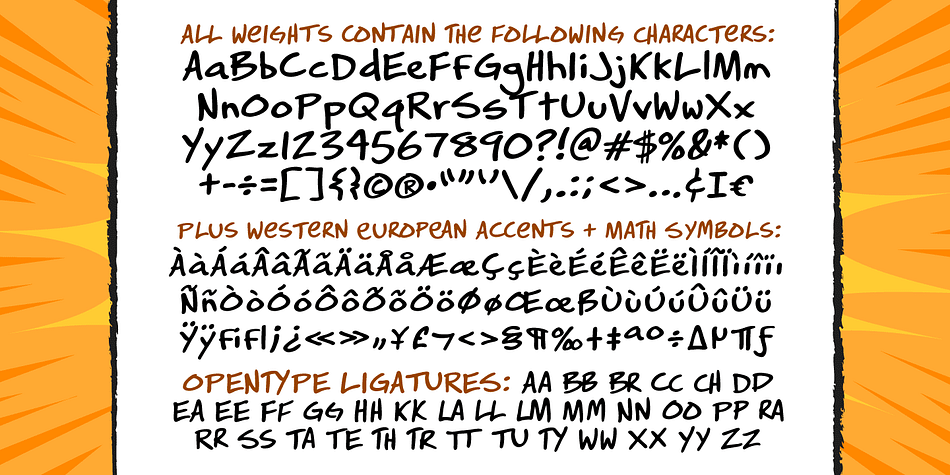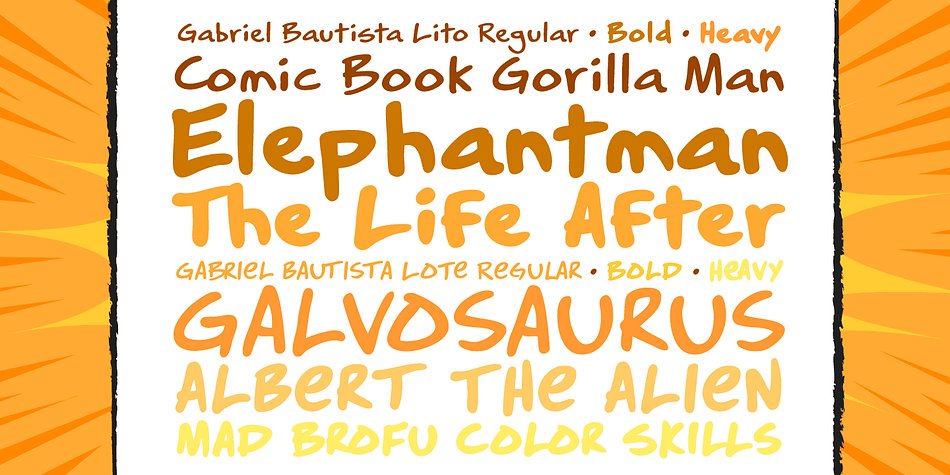
Designed by John Roshell and Gabriel Bautista, Gabriel Bautista is a hand drawn and hand display font family. This typeface has six styles and was published by Comicraft.
Comix Gorilla GABRIEL BAUTISTA is the artist of John JG Roshell’s CHARLEY LOVES ROBOTS series. His incredible watercolors graced the pages of ELEPHANTMEN #50. In some circles he is known as “Galvo” or “Gabo” and he has brought his brofu color skills to the pages THE SPIRIT, ALL STAR WESTERN and also illustrated JESUS CHRIST, IN THE NAME OF THE GUN. He is also the creator of comic battling site ENTERVOID.COM and indy press PULPOPRESS.COM. He loves his girl, his dog lulu and his font.
Six fonts: Regular, Bold & Heavy in upper/lowercase and all uppercase versions with Western European international characters.